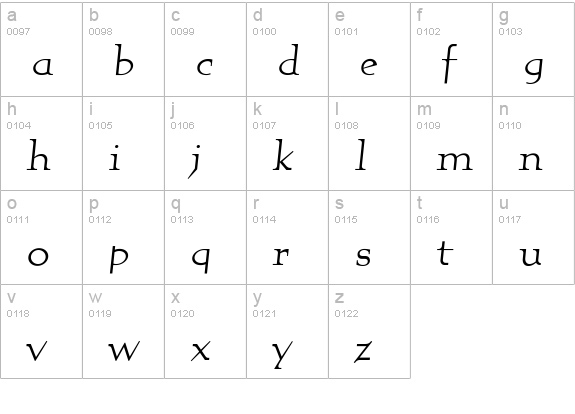
QuartetRegular Font Details
QuartetRegular font is a stunning typeface that exudes elegance and sophistication. With its clean lines and balanced proportions, this font is perfect for all your design projects. Whether you are creating a logo, designing a website, or crafting a beautiful print piece, QuartetRegular font will add a touch of class and professionalism. This versatile font is suitable for both headings and body text, making it a go-to choice for designers and typographers alike. Its timeless appeal and legibility ensure that your message will be delivered with clarity and style. But what sets QuartetRegular font apart is that it is freely available to download at FontsMarket.com. Yes, you read that right! You can access this incredible font without spending a dime. This generous offer allows designers and enthusiasts to enhance their projects without breaking the bank. Downloading QuartetRegular font from FontsMarket.com is a breeze. With just a few clicks, you can have this remarkable typeface at your fingertips. The user-friendly interface of FontsMarket.com ensures a seamless experience, making it easy for anyone to find and download the QuartetRegular font. So why wait? Take advantage of this fantastic opportunity and elevate your designs with QuartetRegular font. With its timeless beauty and the fact that it is freely available, this font is a must-have in every designer's toolkit. Don't miss out on this chance to add a touch of sophistication to your next project. Visit FontsMarket.com and download QuartetRegular font today!